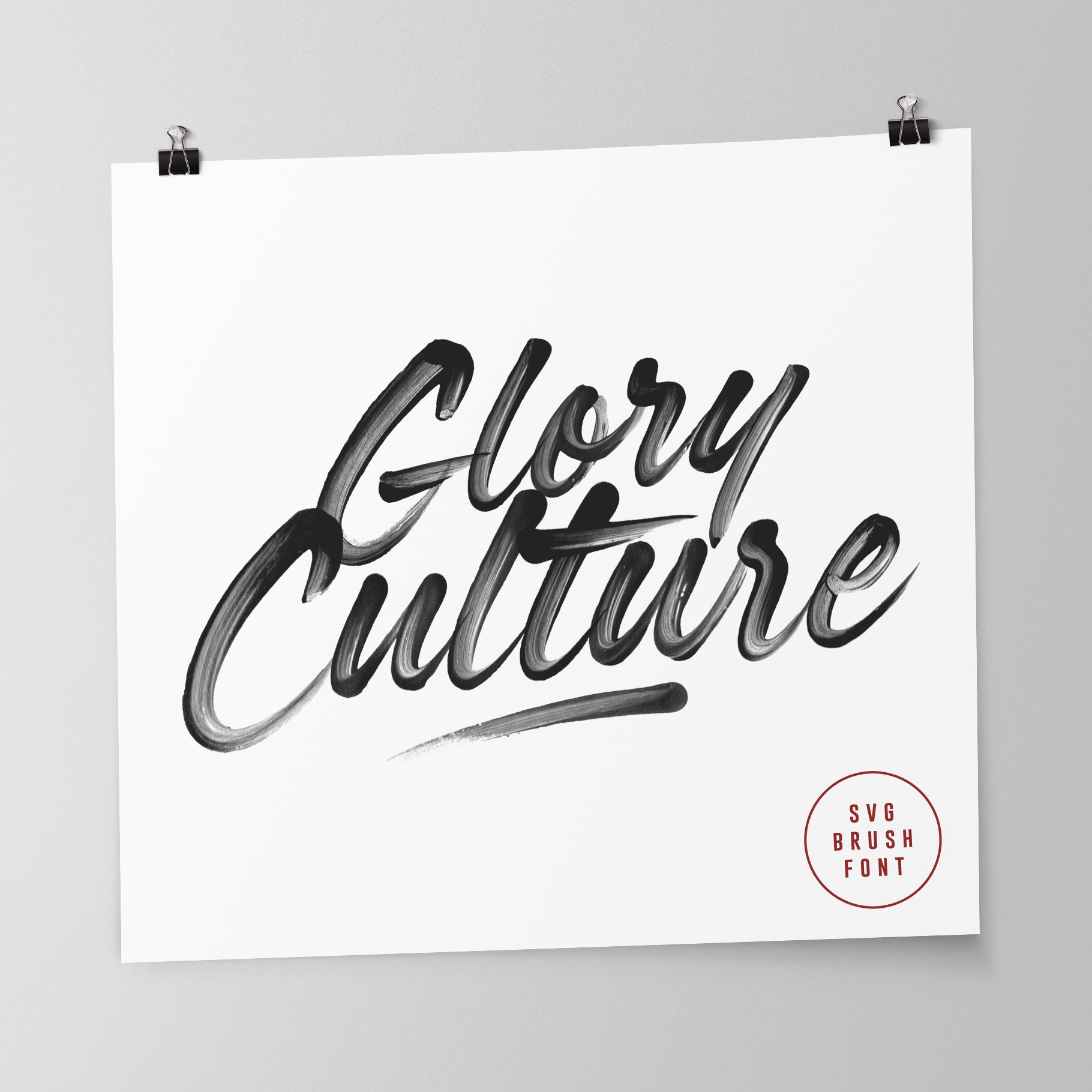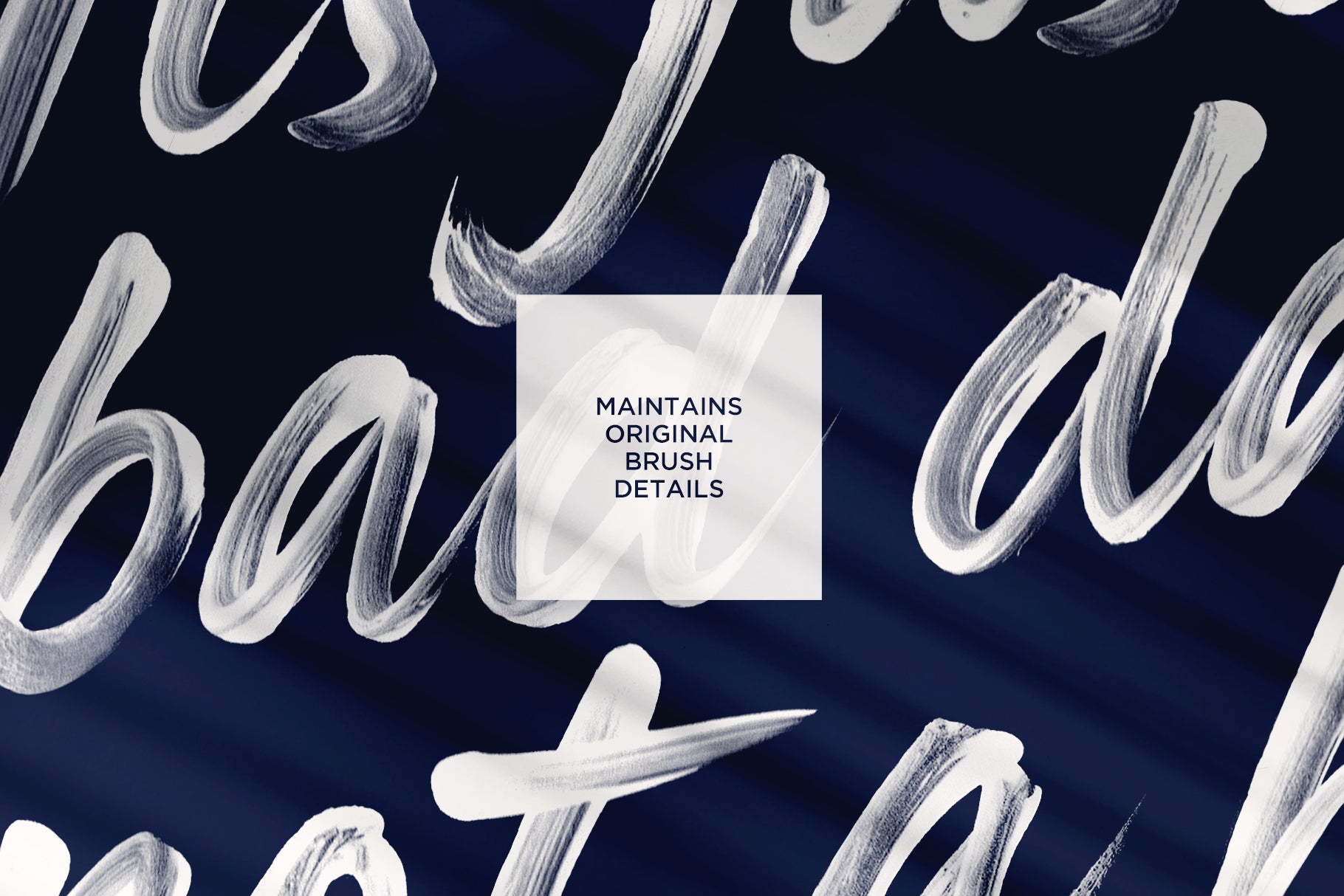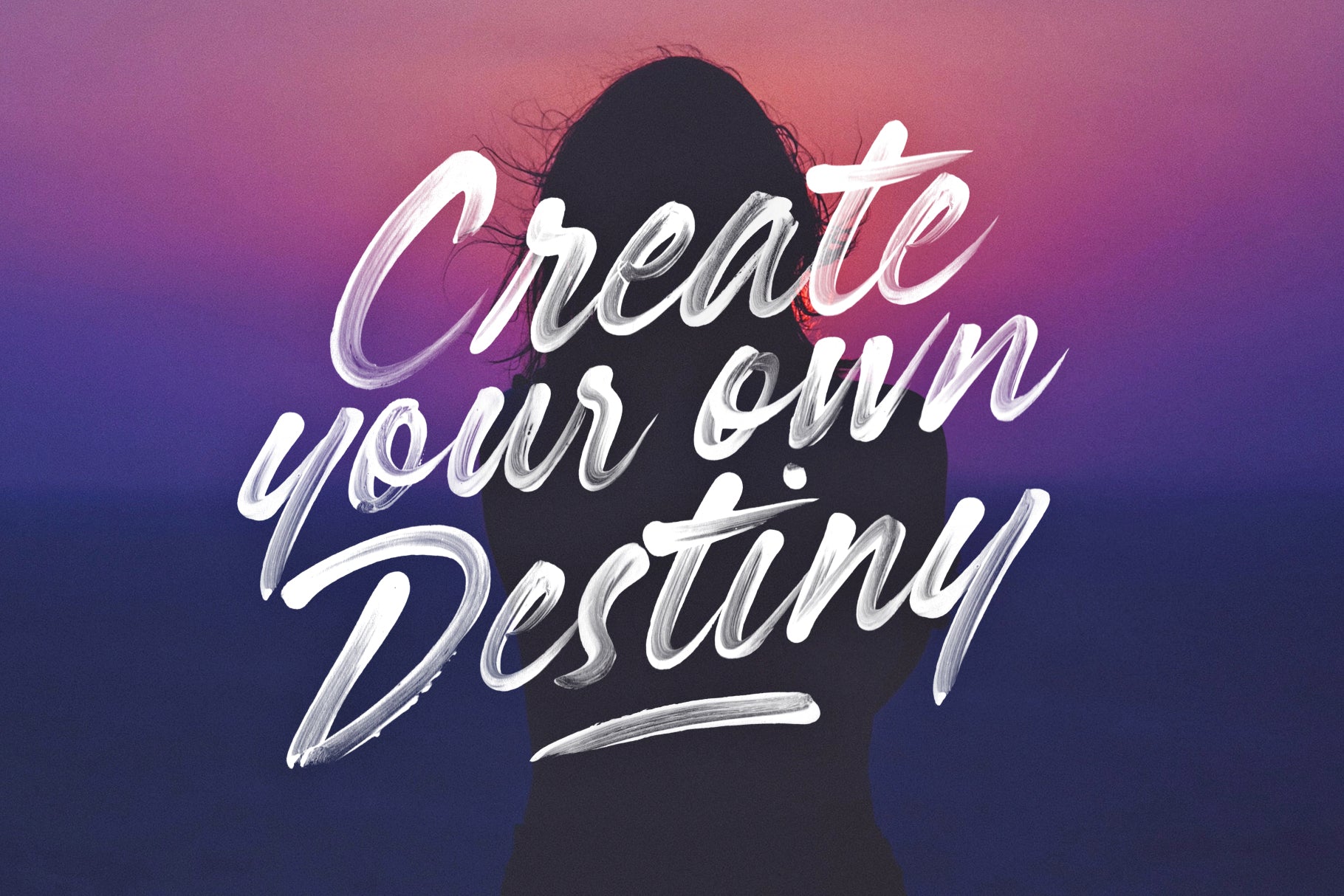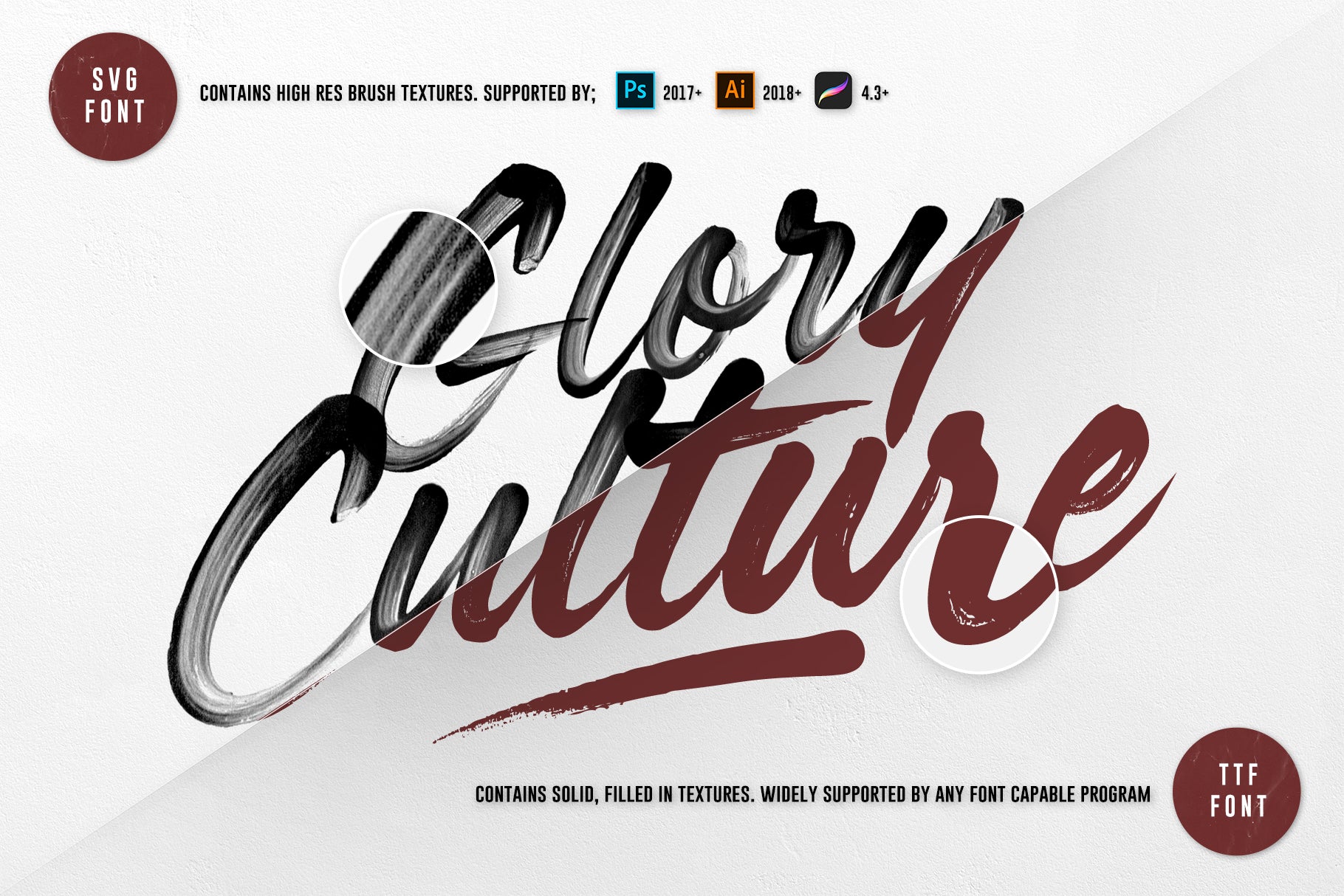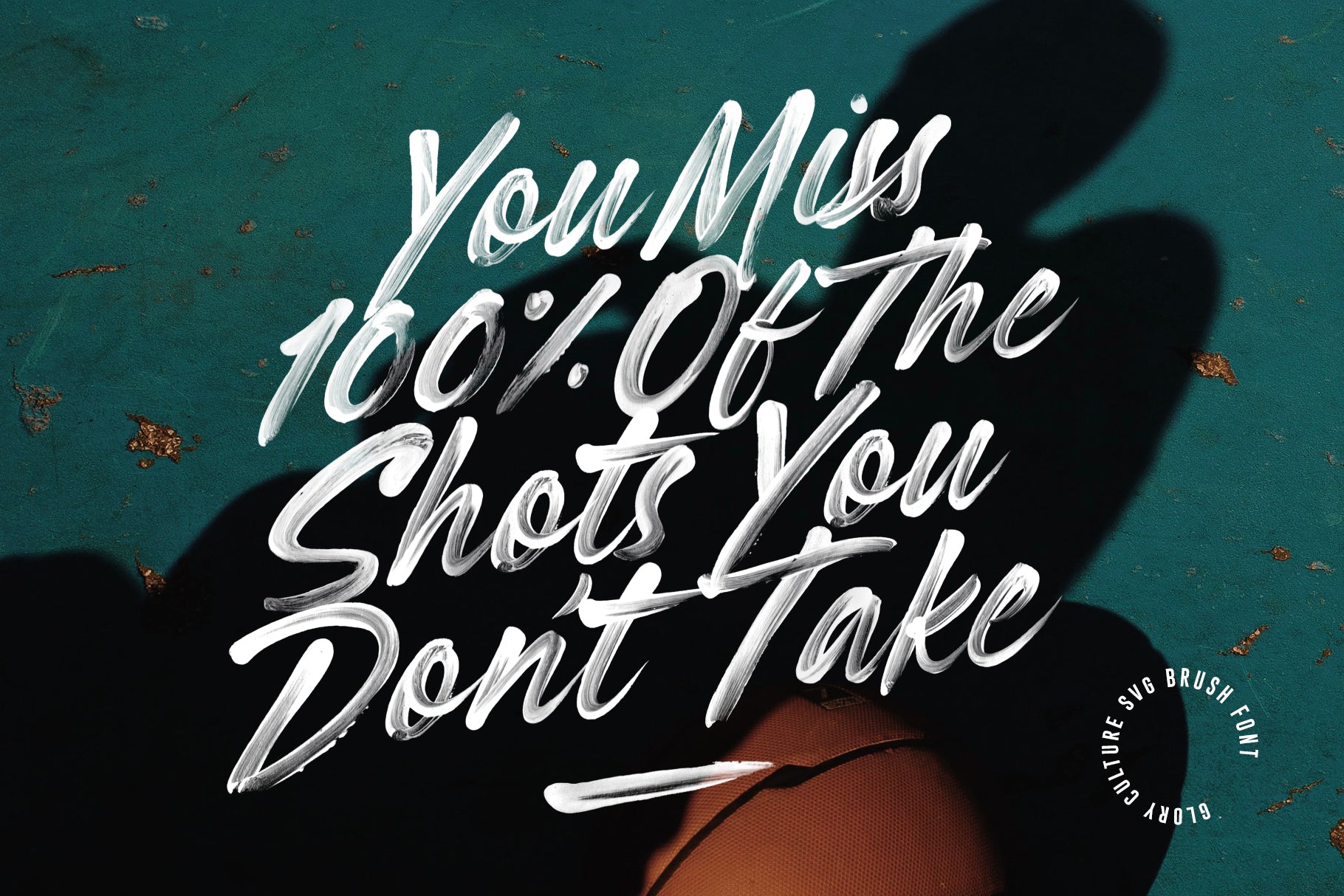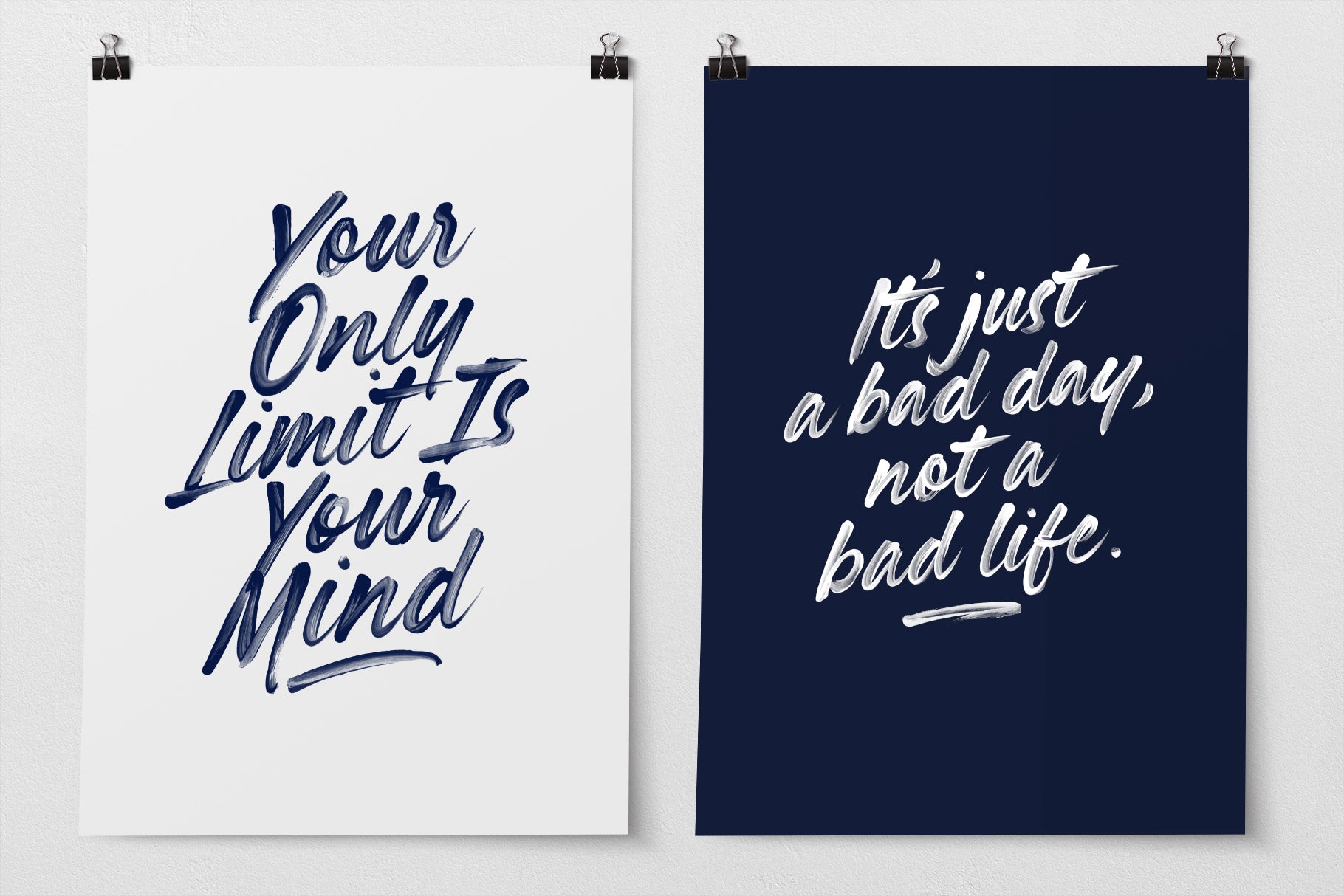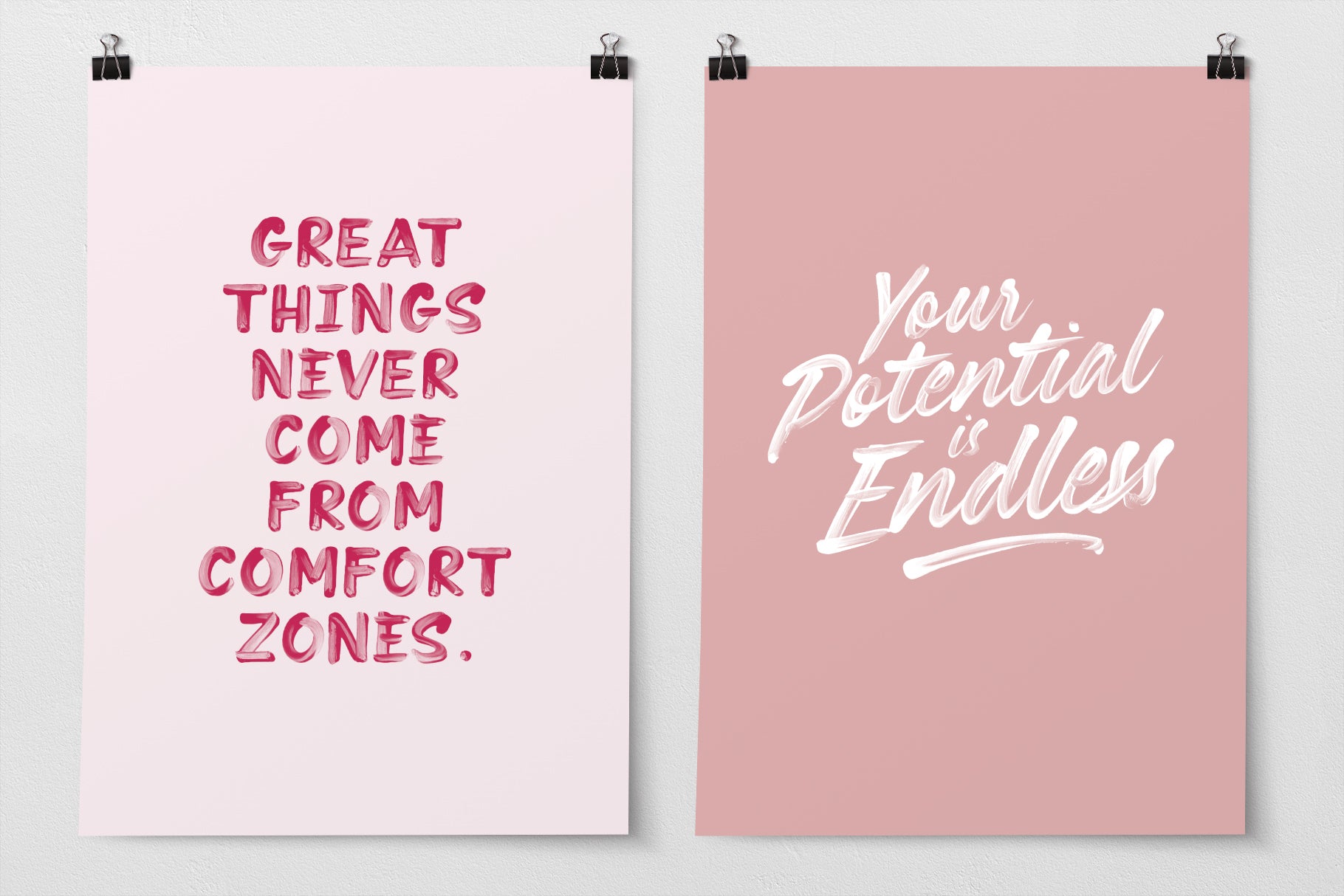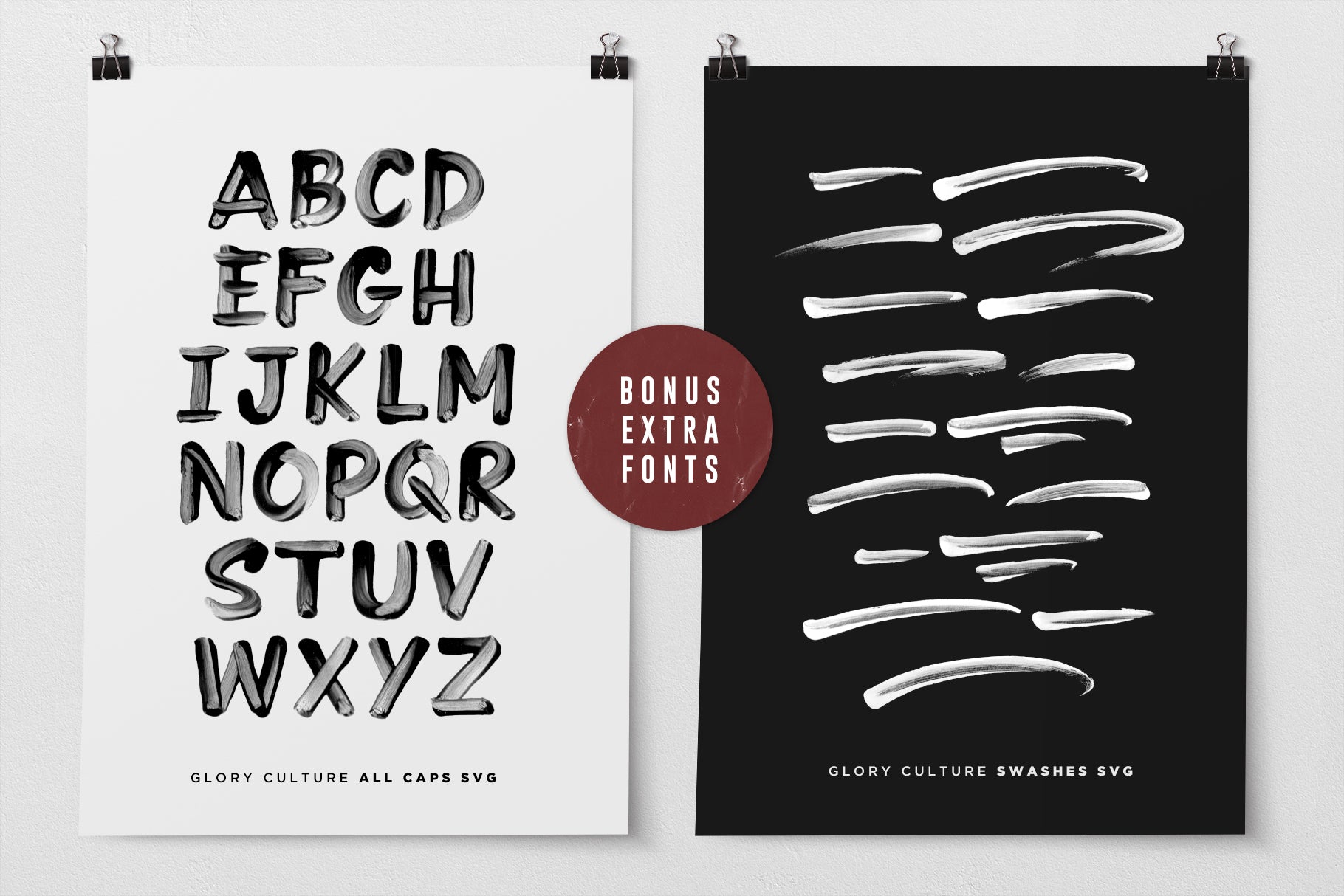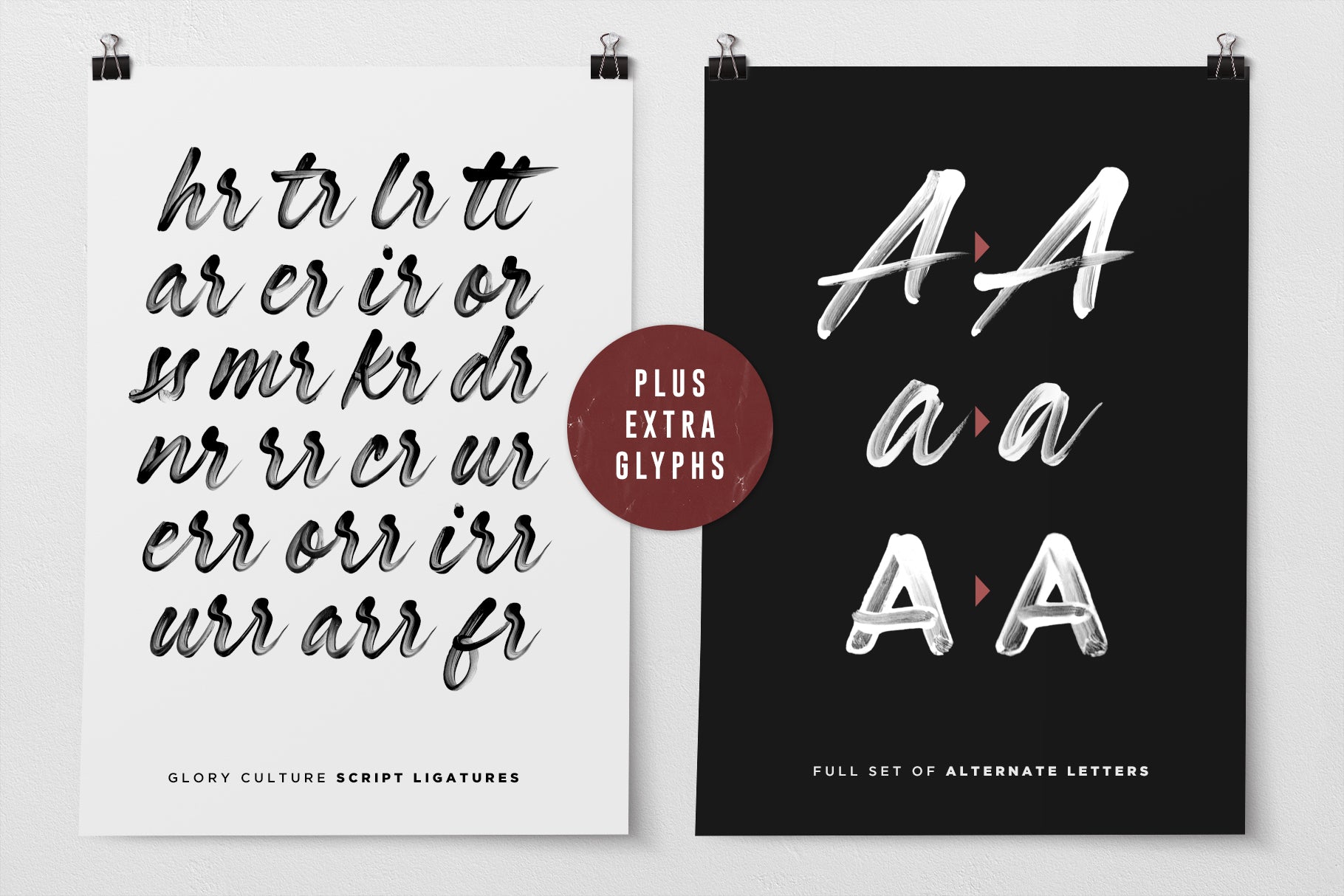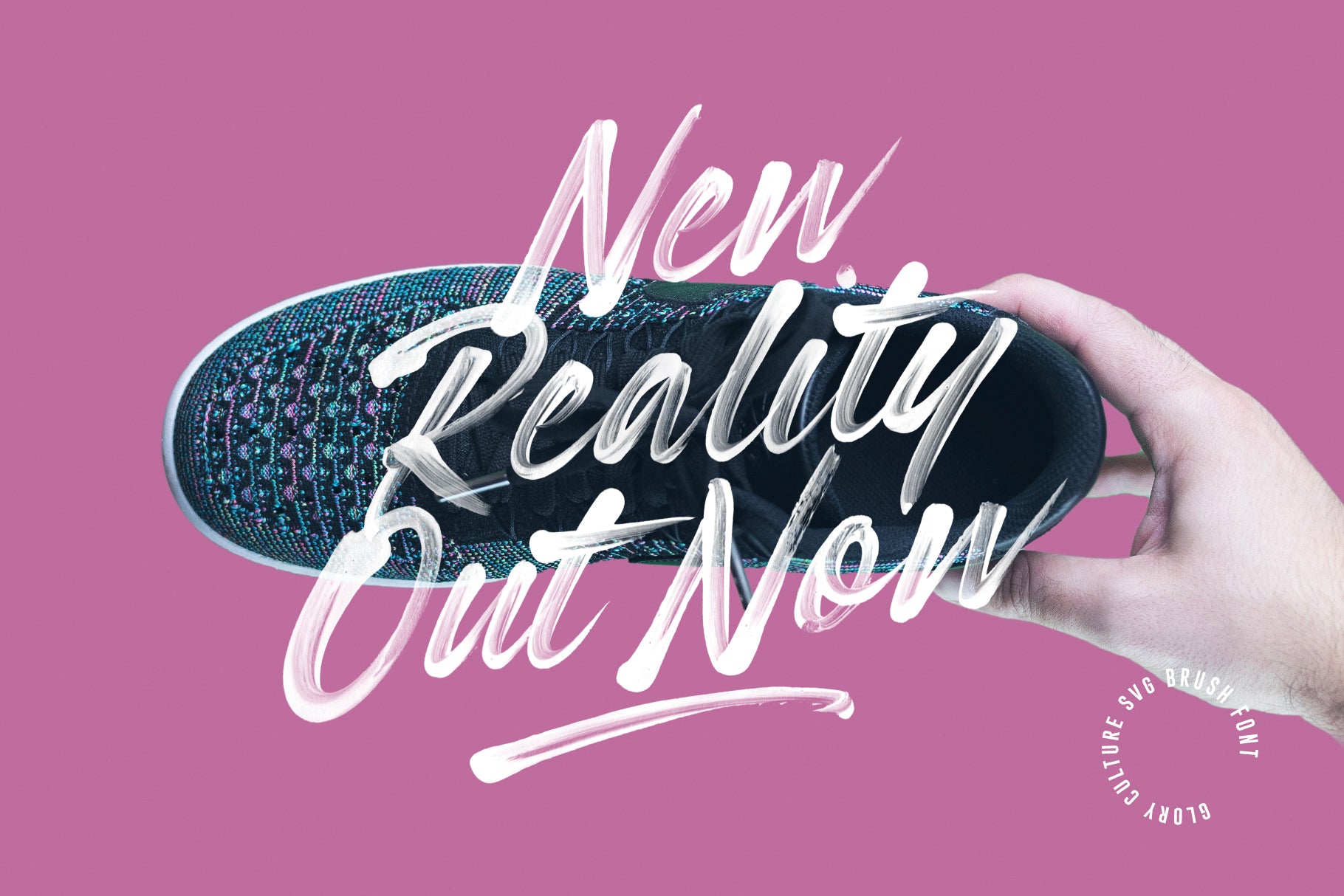
Glory Culture SVG Font + Extras
The Glory Culture SVG Font + Extras includes a high-definition OpenType-SVG brush script font with upper and lowercase characters, numerals, and punctuation, along with an alternate version, an all-caps version, and a set of 18 decorative swashes. Additionally, all fonts are provided in traditional TTF format for broader compatibility, featuring 27 built-in ligatures for natural letter pairing.